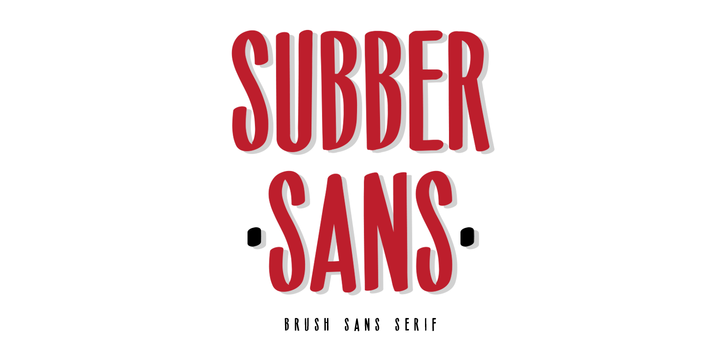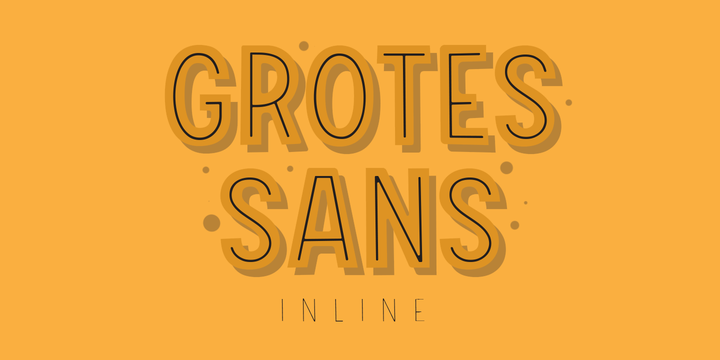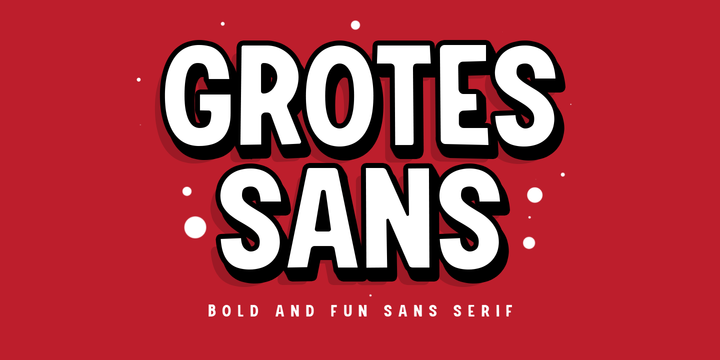
Please welcome, Casual Font Bundle. A pack of fun and variative fonts for your playful design. Every single fonts have their own personality and characters. Would be a perfect mate for your fun and casual design projects. Pair up each of them and you'll never disappointed at all!